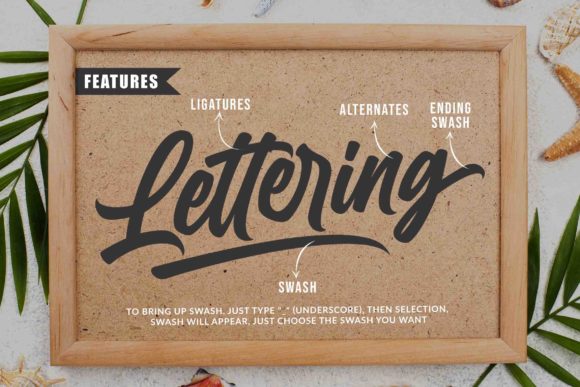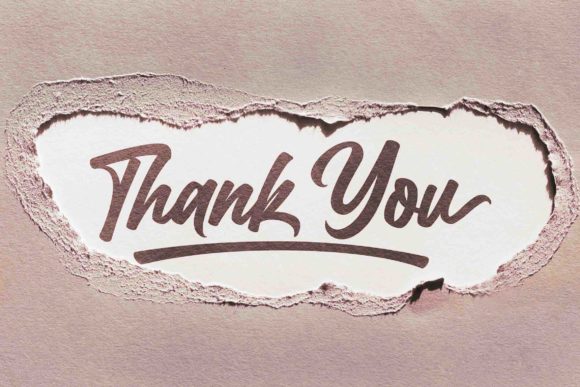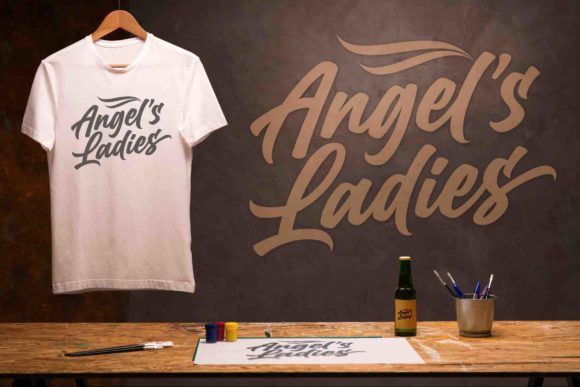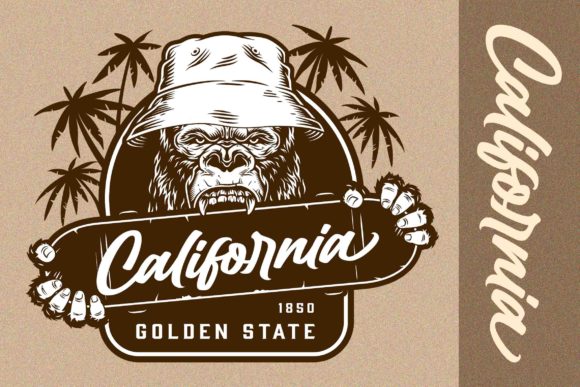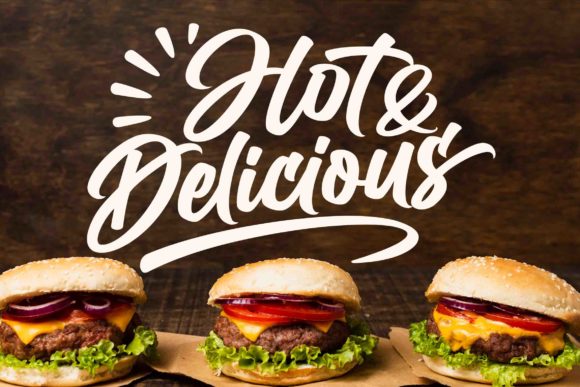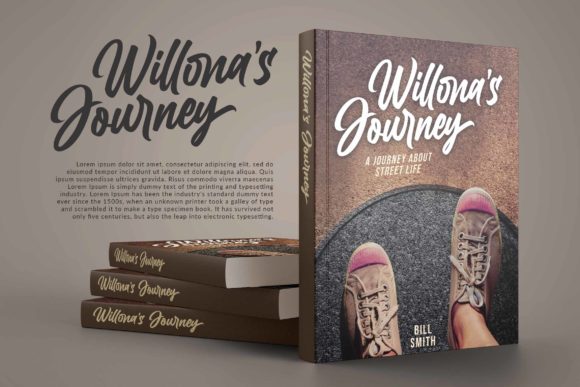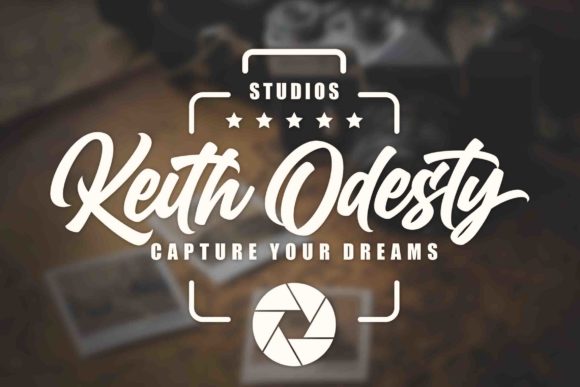
Billion Dreams Font: Enchanting Handwritten Script for Elegant Designs
Weave spells of sophistication with Billion Dreams, a breathtaking handwritten font where every curve whispers elegance. This meticulously crafted script flows across your designs like liquid stardust, transforming ordinary text into extraordinary art for weddings, luxury branding, and projects deserving a touch of magic.
Why Designers Cherish This Font
- Royal Flourishes: 22 delicate swashes included
- Perfect Proportions: Balanced for headlines & body text
- Versatile Magic: Equally stunning on paper and screens
- PUA Encoded: 750+ glyphs at your fingertips
Enchanted Applications
Wedding Elegance
Breathtaking for:
- Foil-pressed invitations
- Calligraphed place cards
- Vellum ceremony programs
Luxury Branding
Elevates:
- Perfume bottle typography
- Jewelry brand logos
- High-end hotel collateral
Technical Enchantment:
- OpenType Features: Contextual Alternates, Swashes
- Languages: Extended Latin + Cyrillic
✨ Designer Secret: Layer over marble textures at 30% opacity for ethereal effects.
Perfect Pairings
- Classic Fairytale: with Garamond Premier
- Modern Majesty: with Neutraface Text
- Minimalist Magic: with Avenir Next Thin